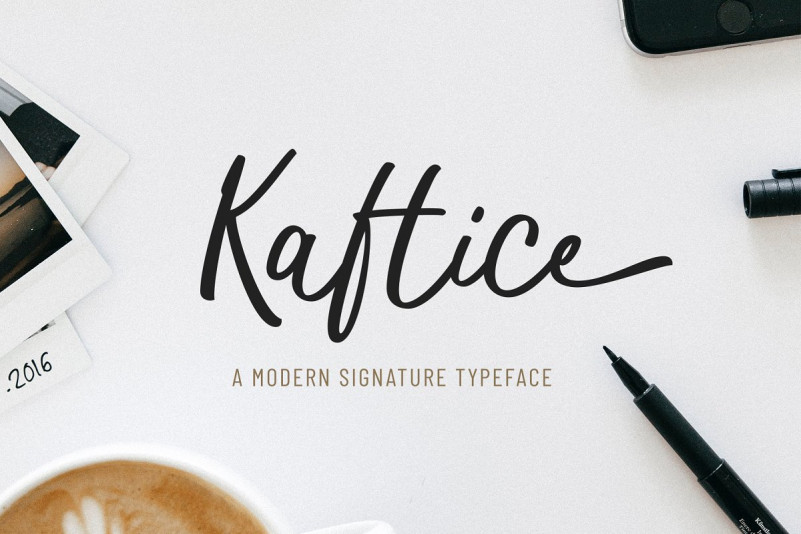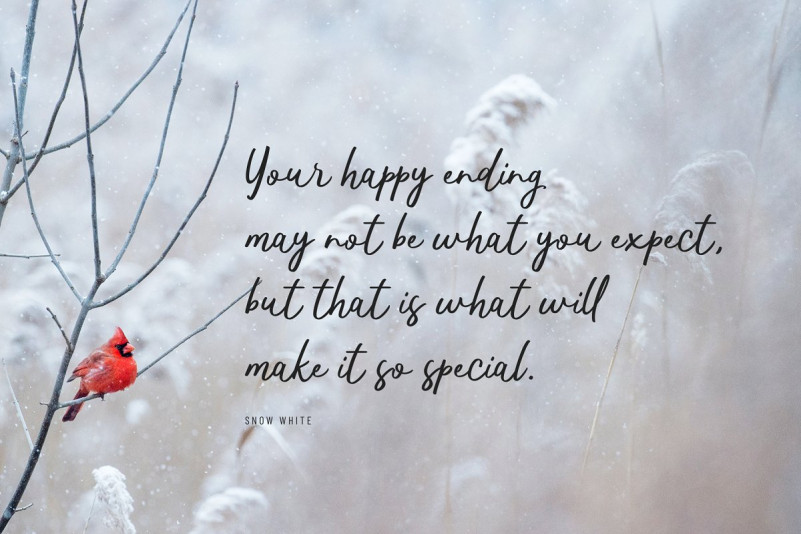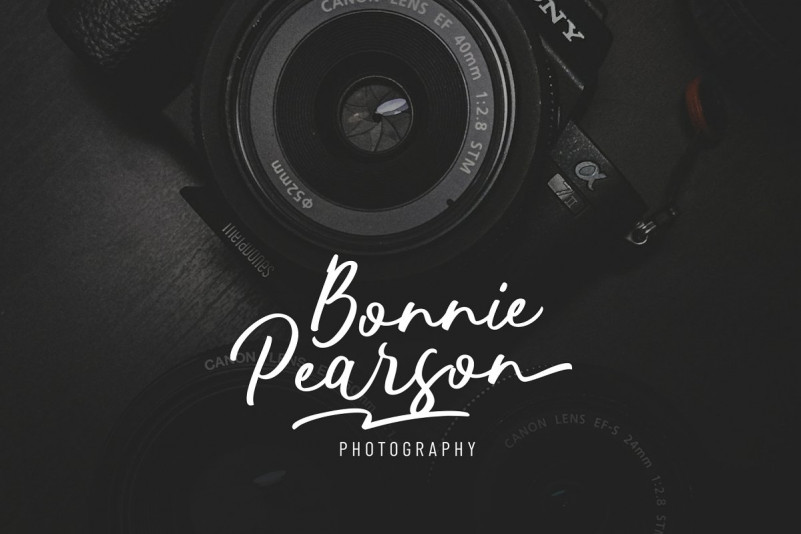
Kaftice Font
Kaftice is a casual handwritten font created based on unique brush strokes.
To add a personal impression, you can put a simple swash at the beginning and end of a word by activating the swash feature or by placing two underscores before / after a letter. In addition, Kaftice also includes standard ligature to make your typography more interesting.